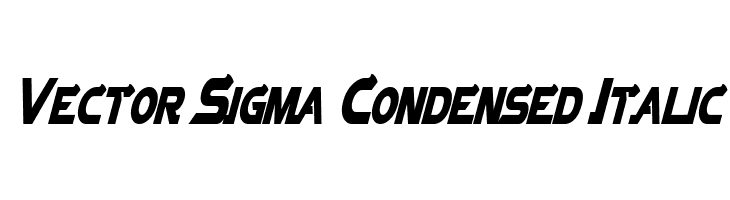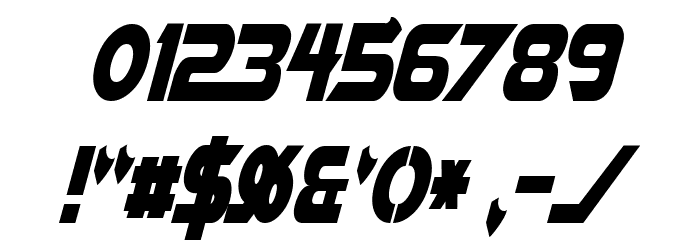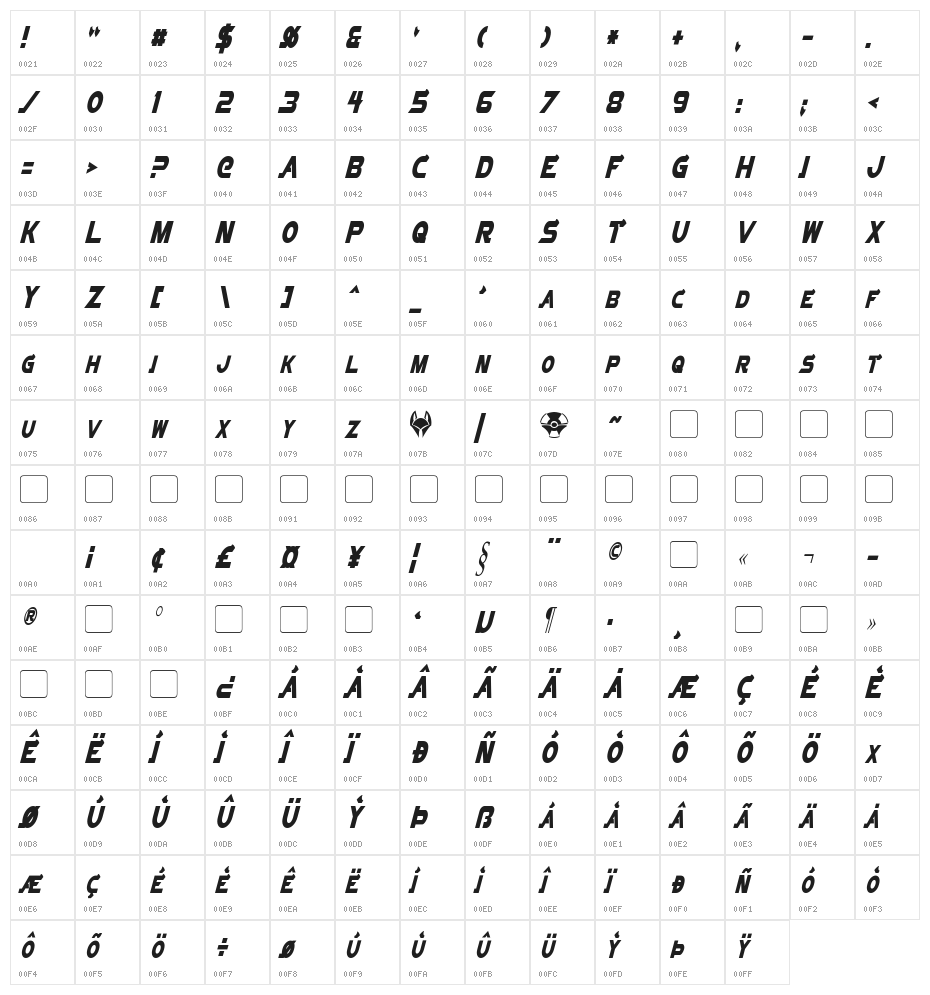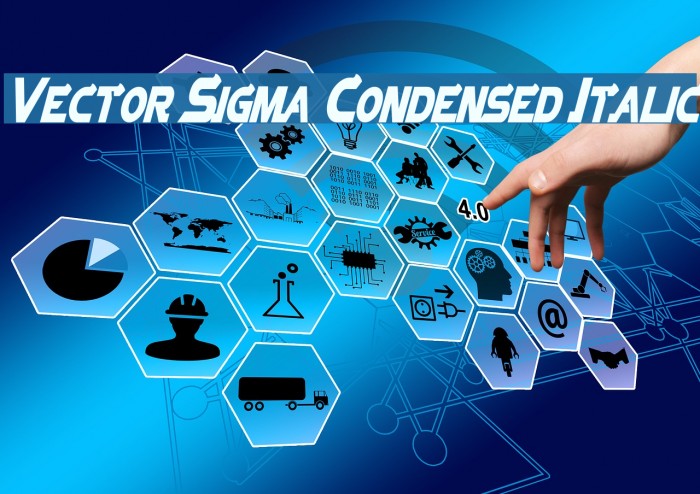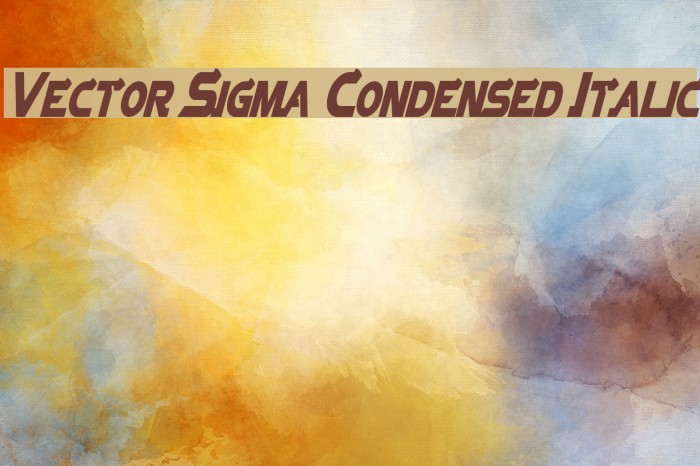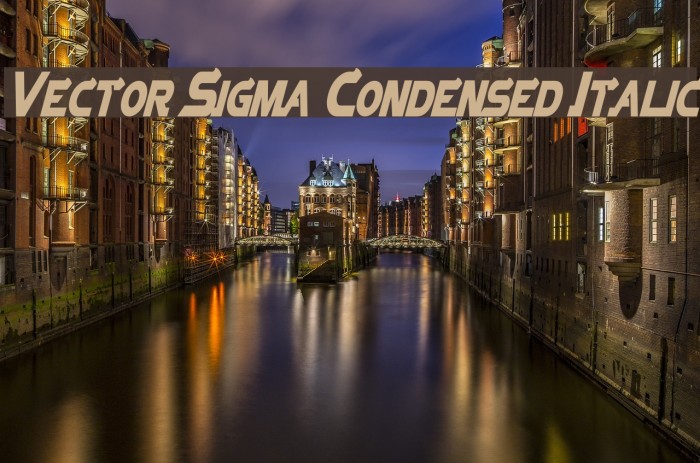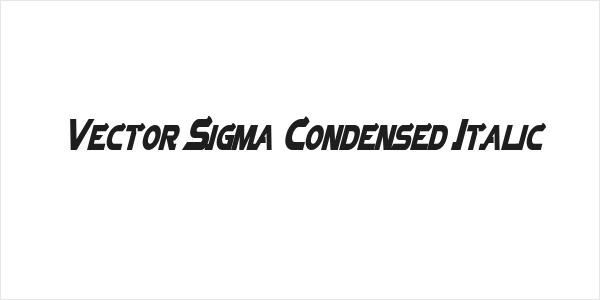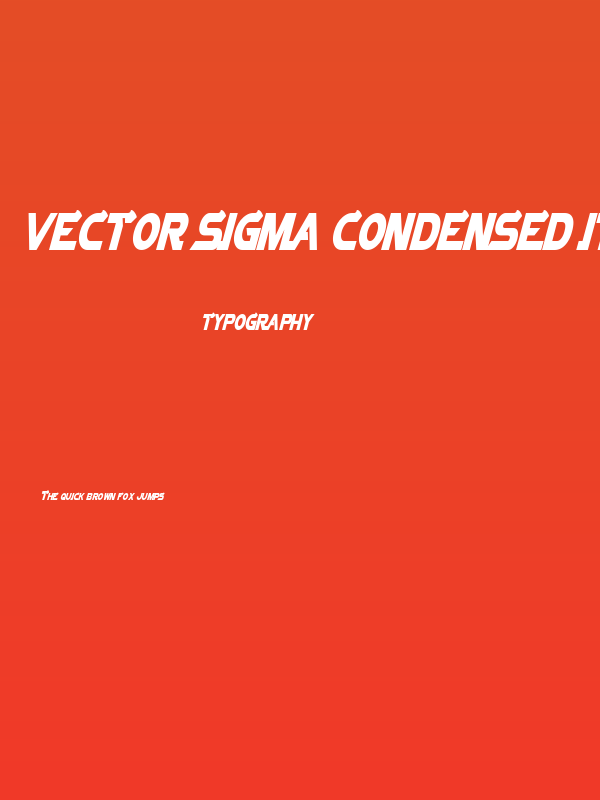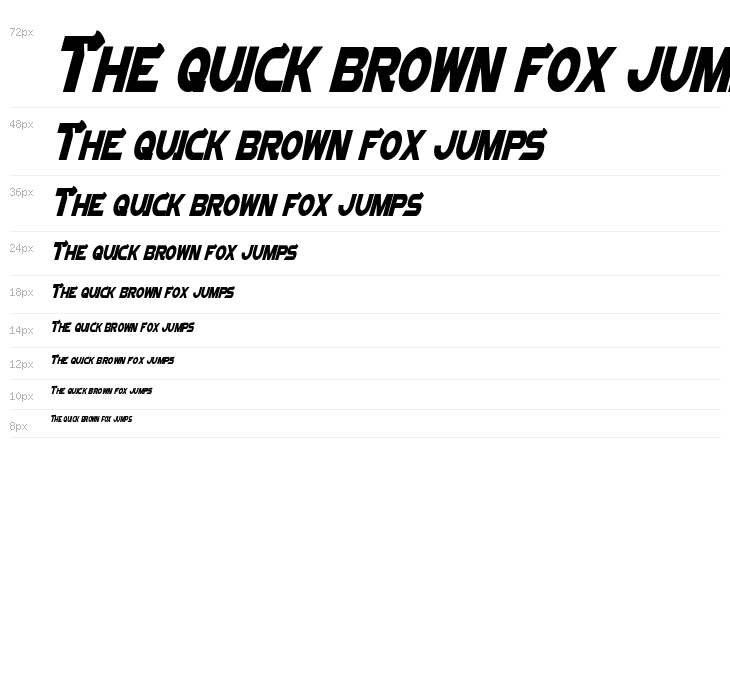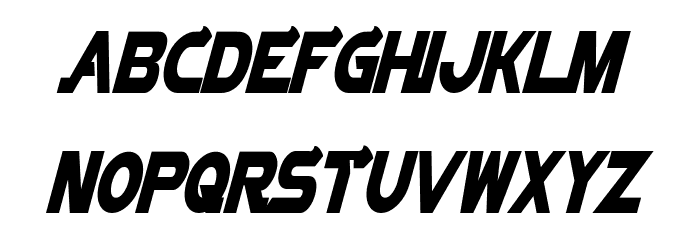
Vector Sigma Condensed Italic Font
Vector Sigma Condensed Italic Description
This font features a bold and dynamic design with a strong italic slant, giving it a sense of motion and energy. The characters are condensed, enhancing the compact and impactful appearance. The strokes are thick and uniform, providing a solid and robust feel. The angular cuts and sharp edges contribute to a modern and futuristic aesthetic, making it suitable for projects that require a bold statement. The numbers and special characters maintain the same stylistic elements, ensuring consistency across all glyphs.